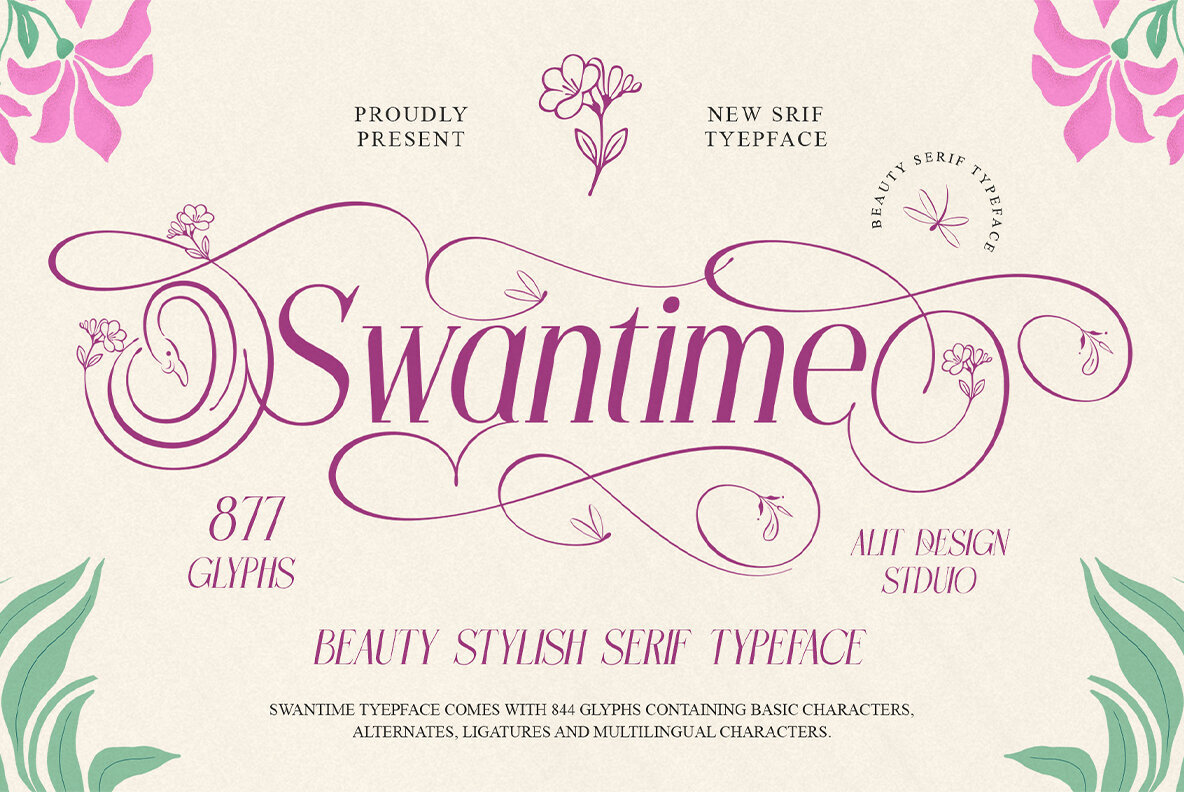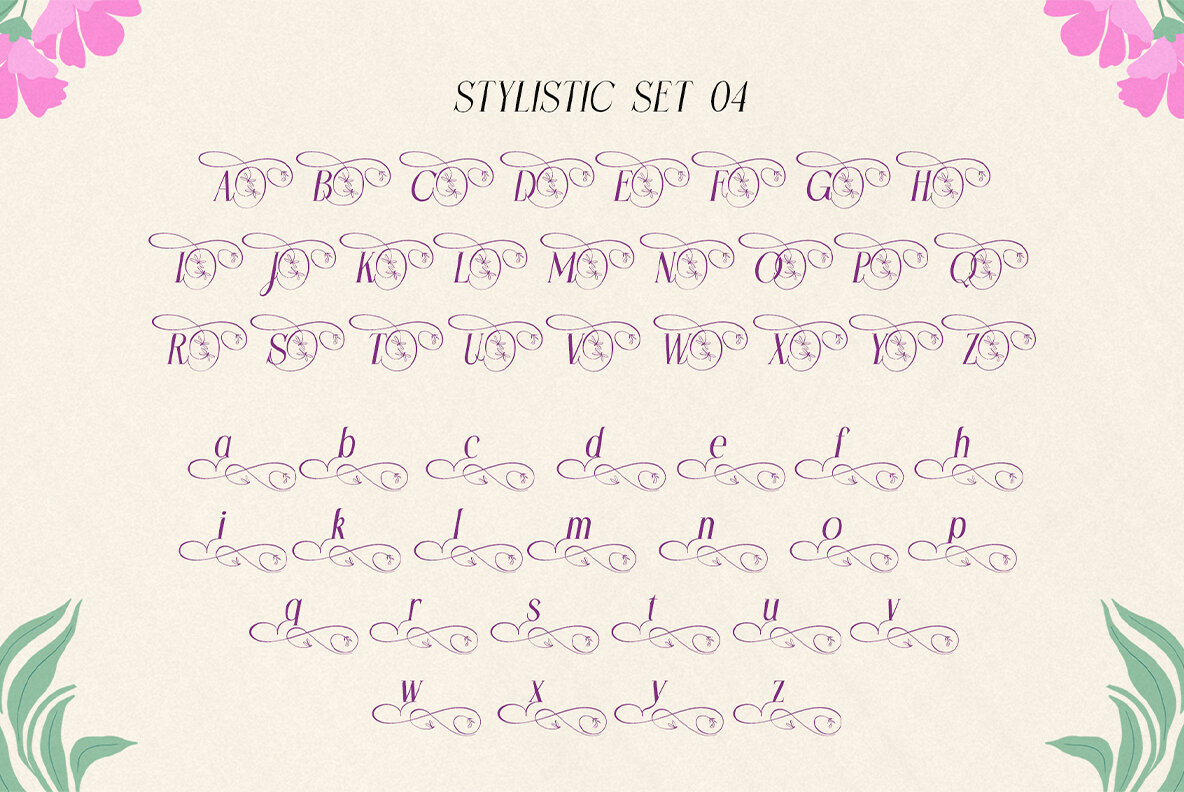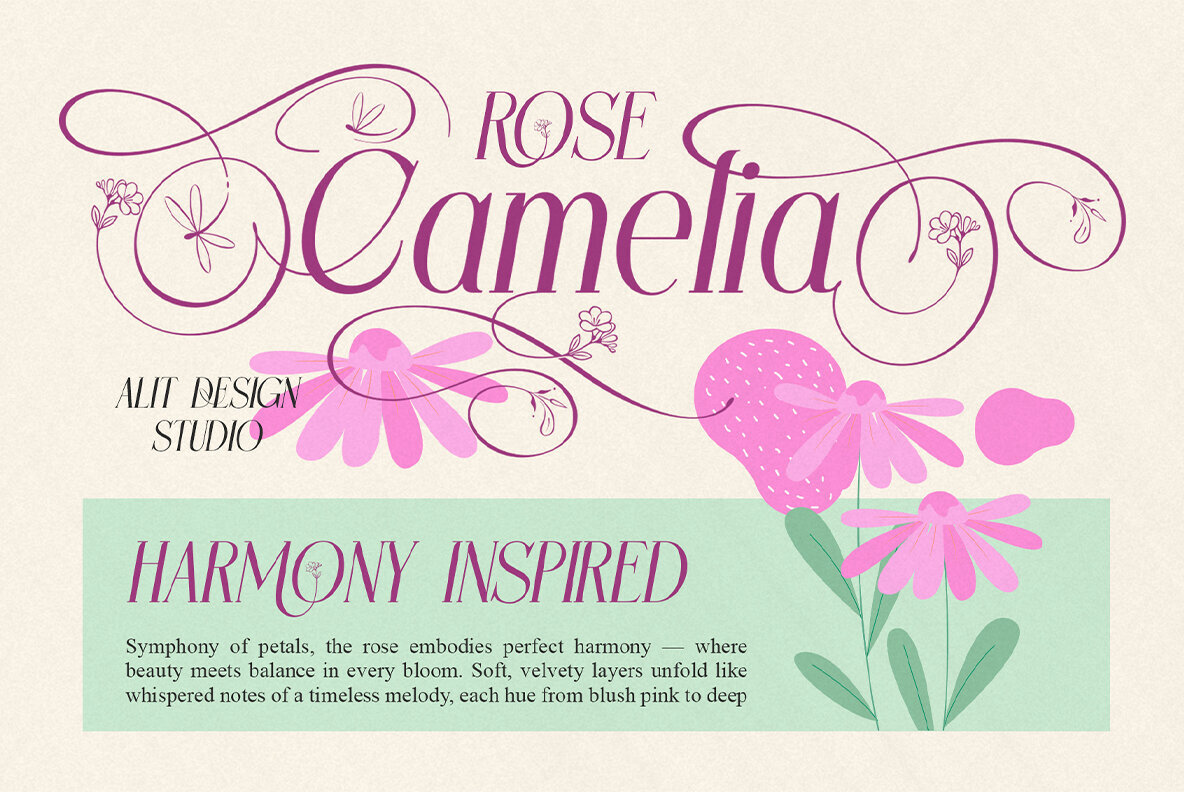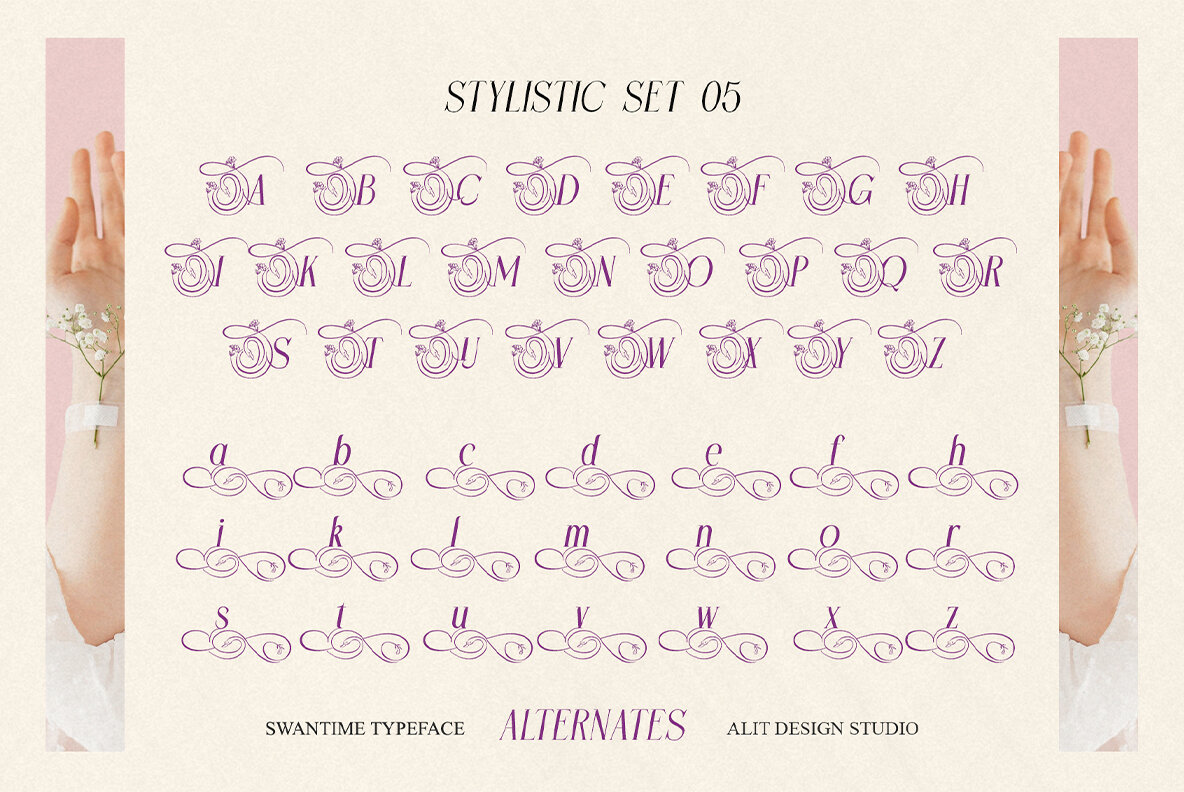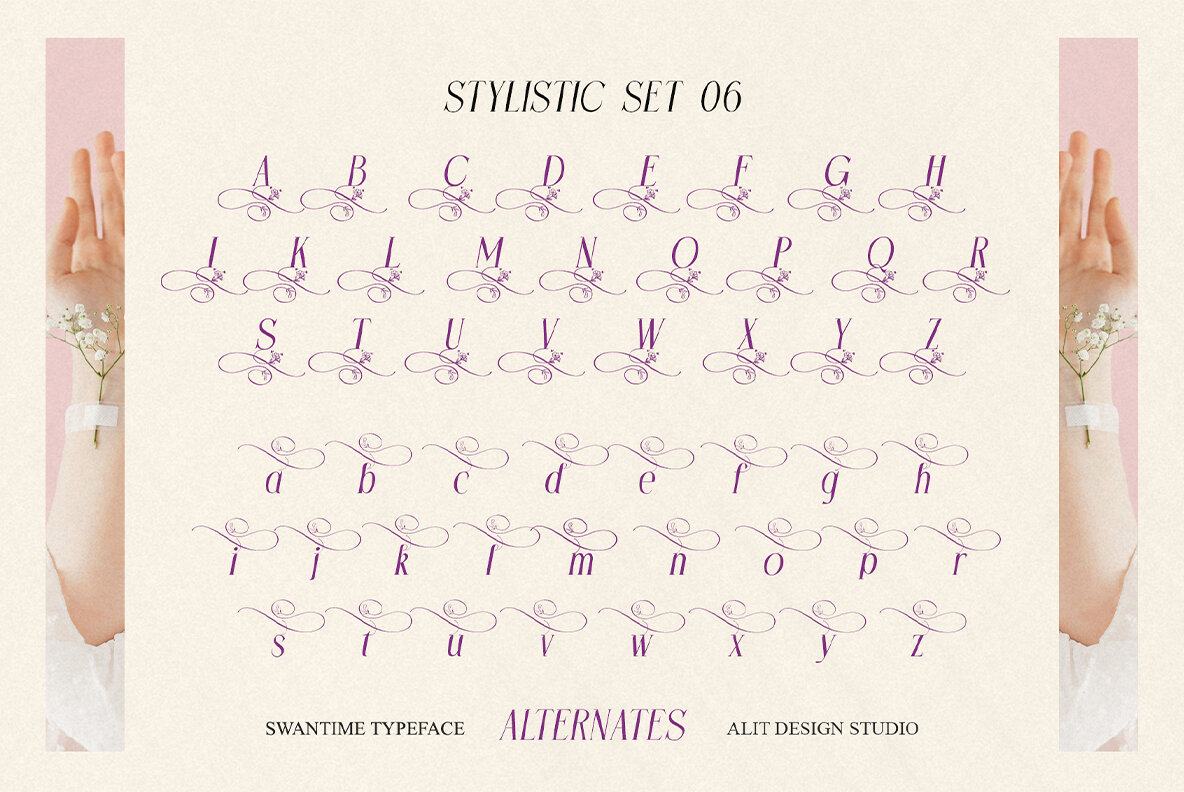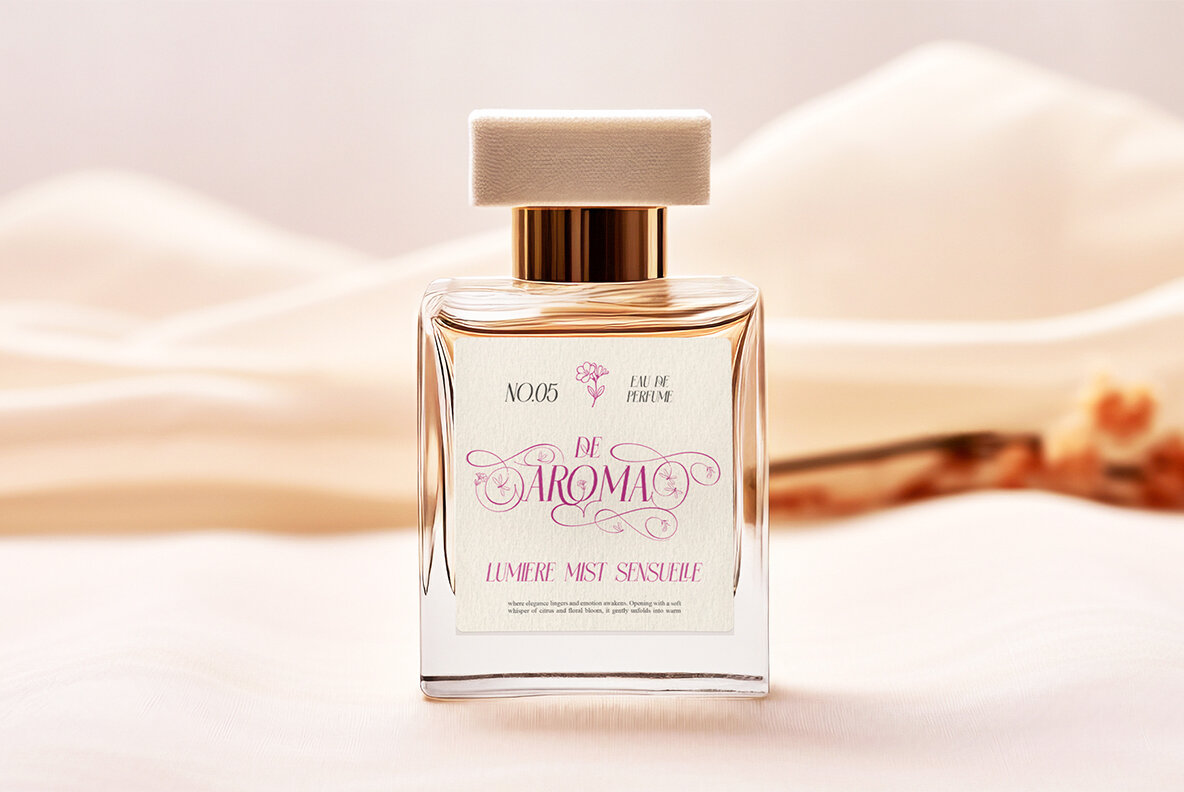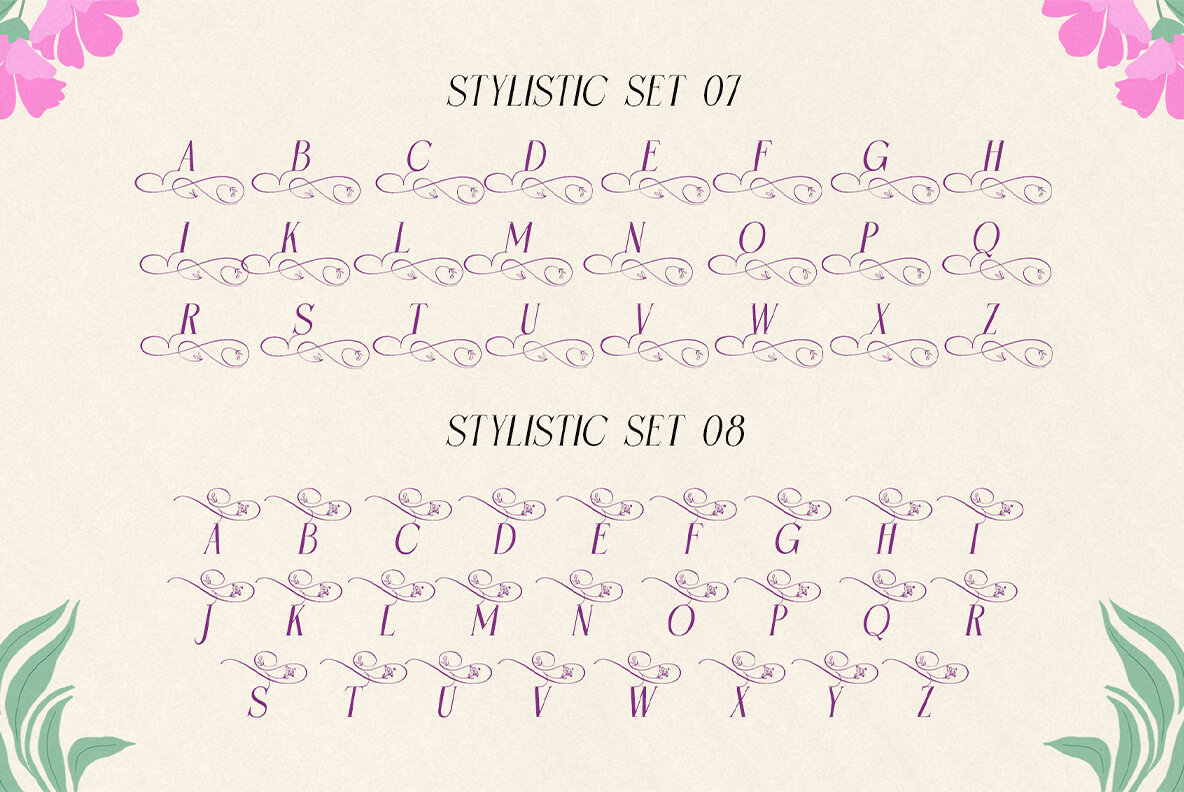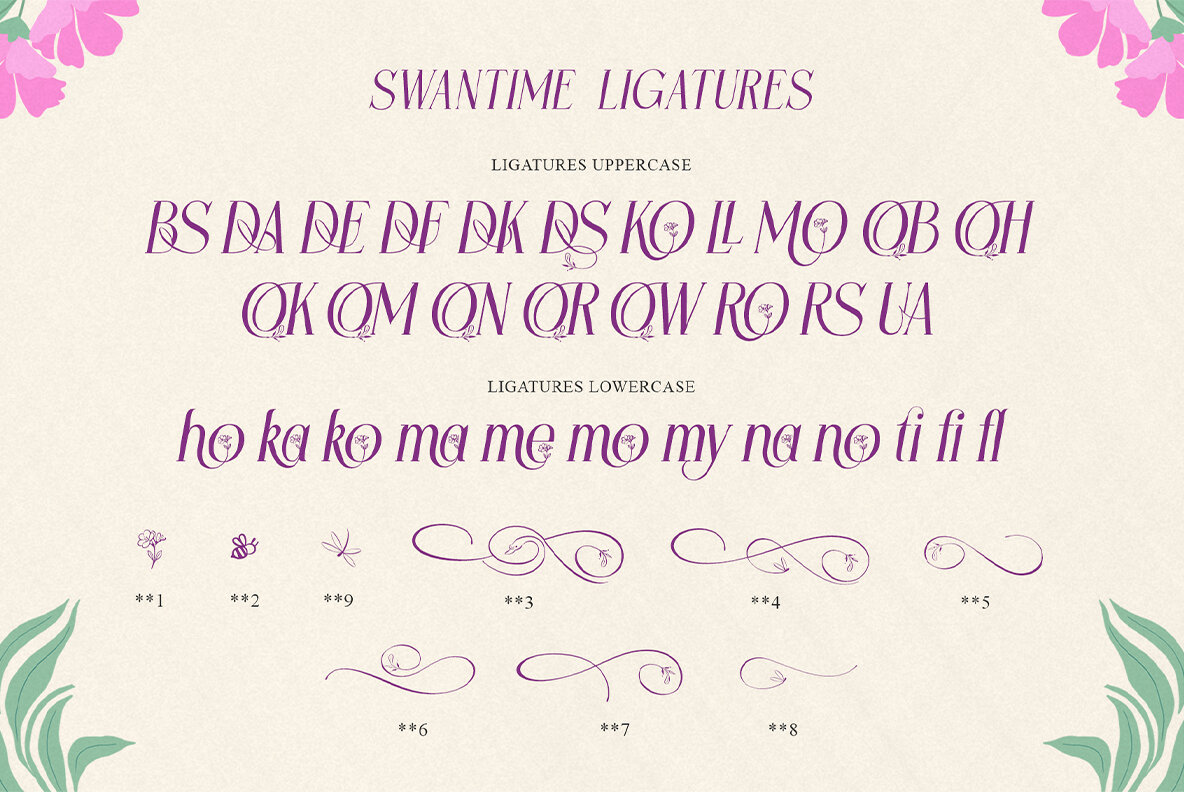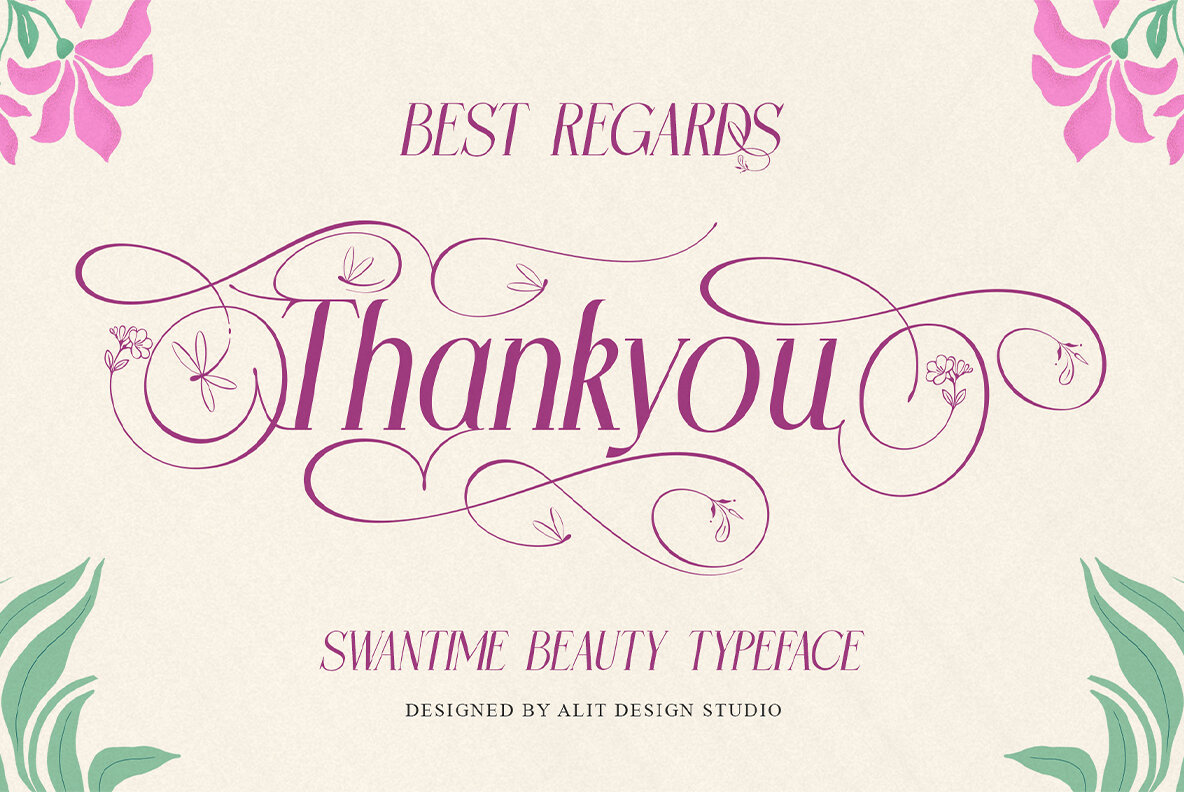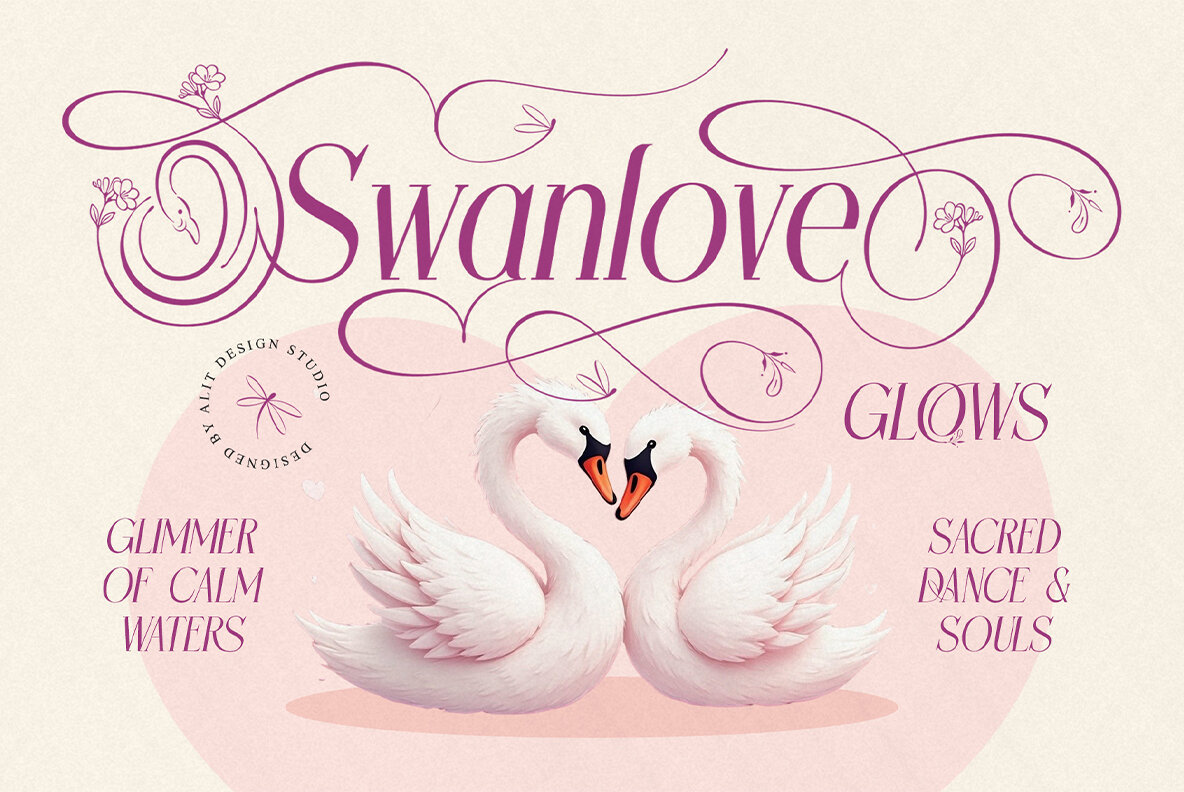
Swantime Font
Swantime Regular
The Swantime typeface effortlessly marries modern sophistication with the whimsy of nature. Its slanted structure cultivates a sense of grace and movement, akin to a swan's serene glide across a tranquil pond. The clean lines of Swantime provide a sophisticated yet straightforward solution for your design needs. What sets Swantime apart are its meticulously crafted ornaments. Each character is a testament to nature's beauty, featuring elements such as flowers, butterflies, dragonflies, and swans. With a repertoire of over 870 glyphs, including stylistic sets, ligatures, and alternates, Swantime offers expansive creative potential. Key Features: Ideal For:Swantime: An Elegant Nature-Inspired Serif Typeface